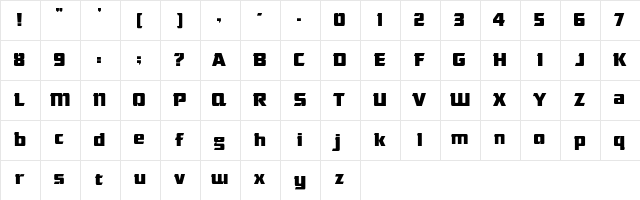
Das Modern Regular Free Font
Das Modern Regular
Foundry: Paulo W
Design Context for Das Modern
Das Modern is a composed and adaptable typeface that performs quietly and consistently across a wide range of design contexts.
Who designed the Das Modern Regular font?
This font was published by Paulo W. Check the technical specs section for copyright and designer details.